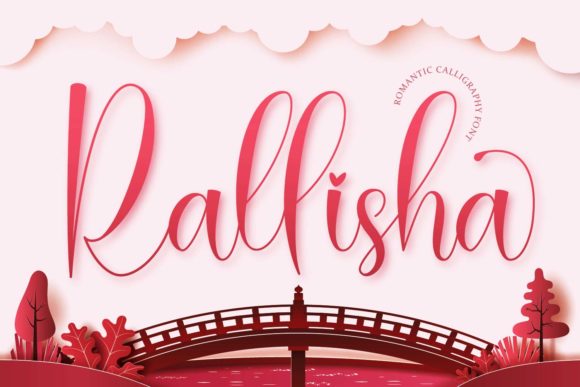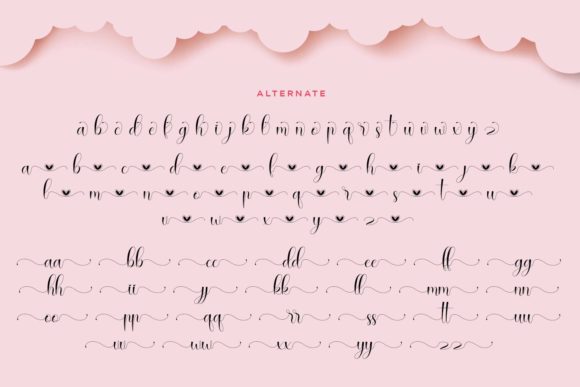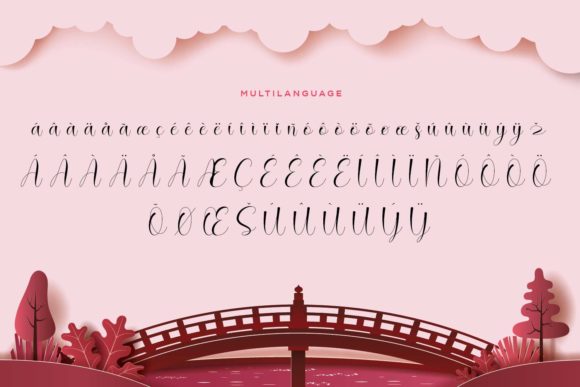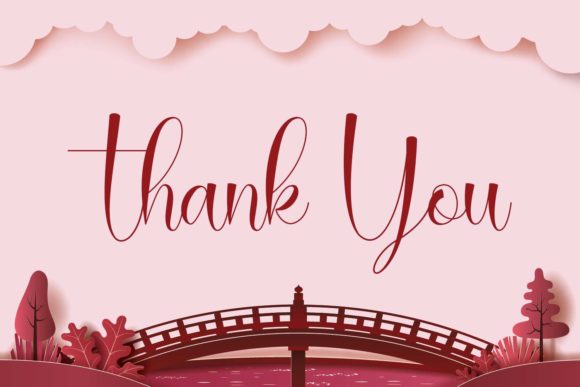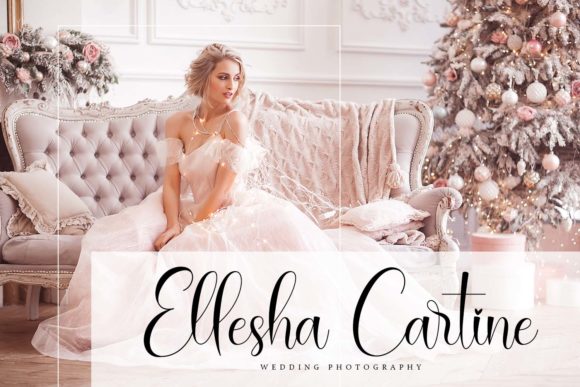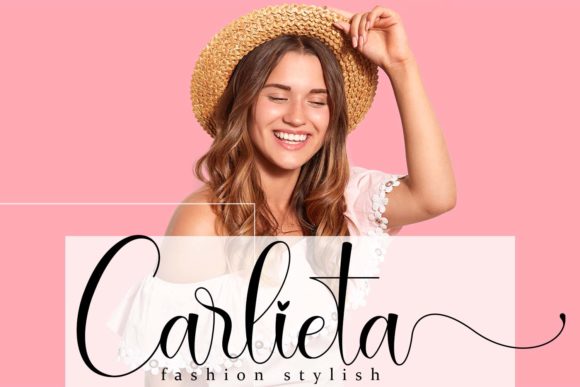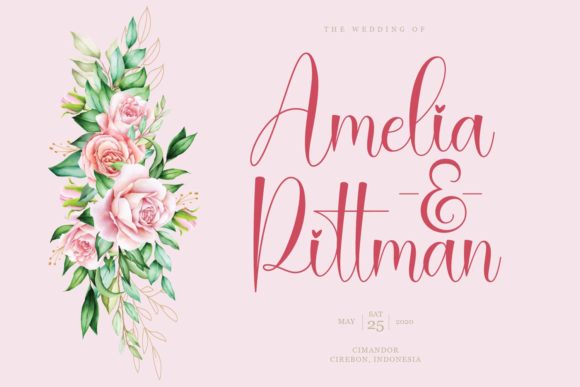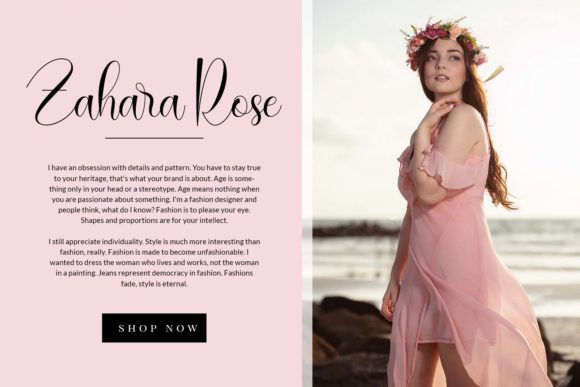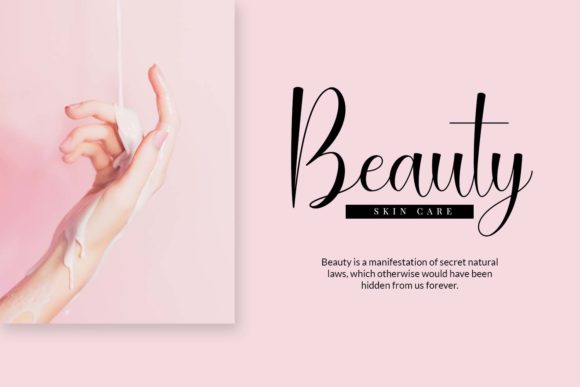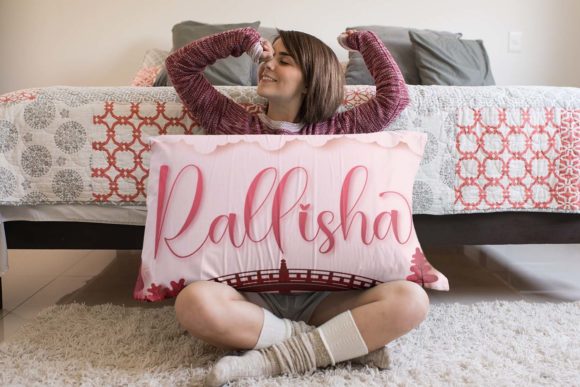
Rallisha Font
About Rallisha Font
Rallisha feels equally charming and elegant. It is PUA encoded which means you can access all of the glyphs and swashes with ease! It features a varying baseline, smooth lines, gorgeous glyphs and stunning alternates. Fall in love with its incredibly versatile style and use it to create spectacular designs!